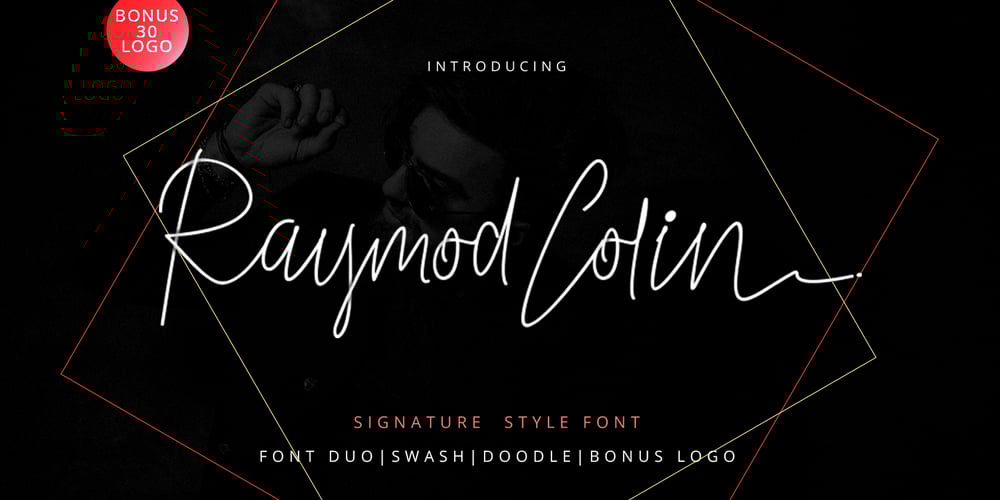
Raymod Colin Family
Raymod Colin Family font
Raymod Colin Family Font Family was designed by Ferdiansyah and published by ijemrockart. Raymod Colin Family contains 6 styles and family package options. Introducing Raymod Colin Font Duo & Free 30 Logos Raymod Colin Font a new fresh & modern script with a handmade calligraphy style, decorative characters and a dancing baseline! So beautiful on invitation like greeting cards, branding materials, business cards, quotes, posters, and more!! Raymod Colin Font come with 330 glyphs+. The alternative characters were divided into several Open Type features such as Swash, Stylistic Sets, Stylistic Alternates, and Ligature. The Open Type features can be accessed by using Open Type savvy programs such as Adobe Illustrator, Adobe InDesign, Adobe Photoshop Corel Draw X version, And Microsoft Word. And this Font has given PUA unicode (specially coded fonts). so that all the alternate characters can easily be accessed in full by a craftsman or designer. If you have any question, do not hesitate to contact me by email ijemrealmad54@gmail.com Thanks and happy designing 🙂